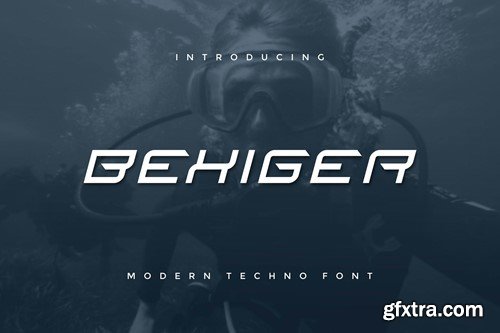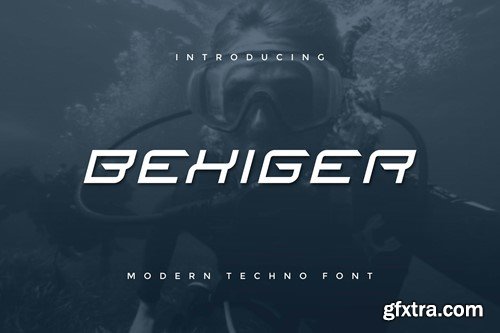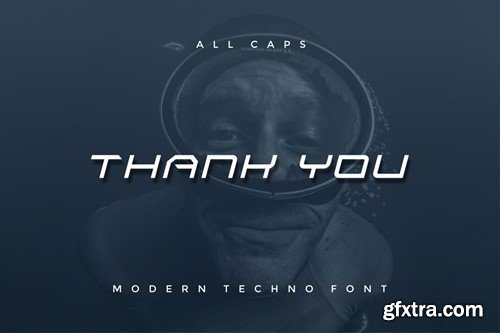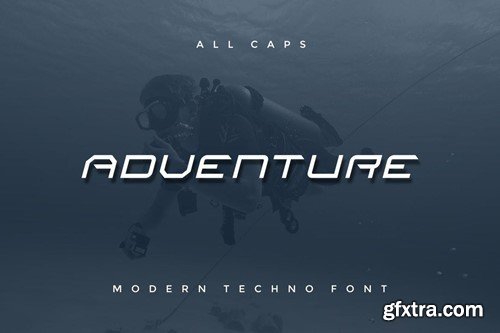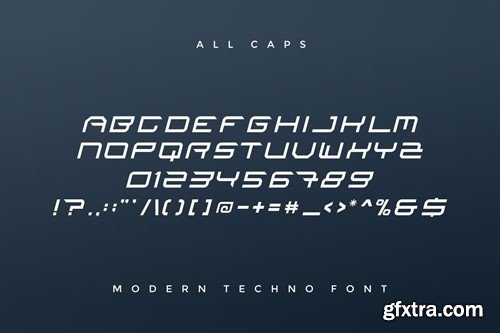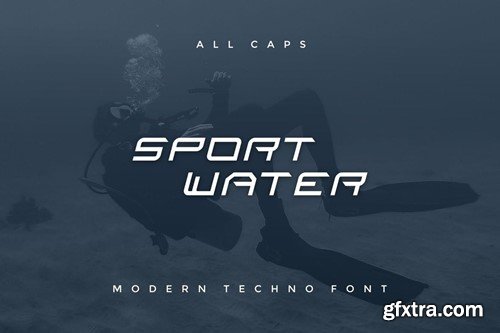
贝希格 - 现代科技运动字体 JWWLATR
Bexiger - Modern Techno Sport Font
Introducing our new product Bexiger - Modern Font Bexiger is a bold, modern display font with playful flair, ideal for attention-grabbing headlines, logos, and diverse design projects. Versatile and readable in both digital and print, Bexiger adds a dynamic touch to your message. availlable